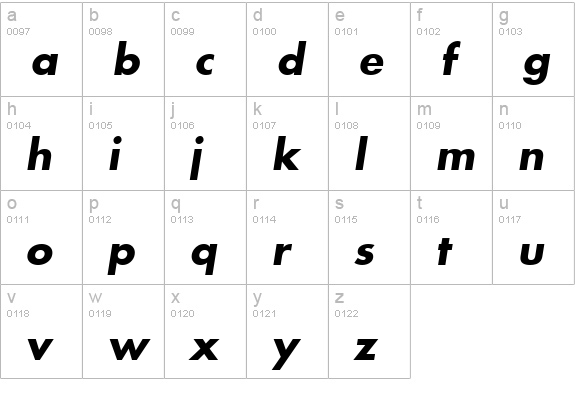
Kudos SSi Bold Italic is a strong, high-contrast, italic variant in the Kudos typeface family \xE2\x80\x94 well suited to headlines, attention-grabbing titles, and strong calls-to-action.
Introducing Kudos SSi Bold Italic, a stylish and versatile font that exudes confidence and sophistication. Its bold yet elegant design makes it perfect for headlines, logos, and other attention-grabbing design projects. The italicized slant adds a touch of flair and modernity to your text, making it stand out from the crowd. And the best part? Kudos SSi Bold Italic is available for free download at FontsMarket.com! Whether you're a graphic designer, a student working on a project, or just someone looking to add a touch of class to your documents, this font is a fantastic choice. Don't miss out on the opportunity to enhance your designs with this beautiful and impactful typeface. Download Kudos SSi Bold Italic today and take your projects to the next level!